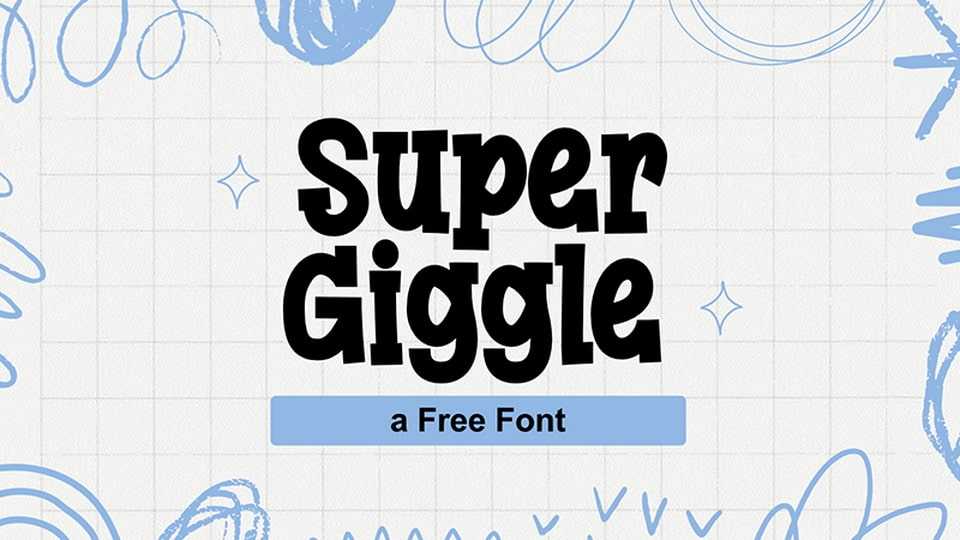
Download Super Giggle font, a playful and quirky cartoon typeface bursting with personality and fun. Super Giggle font features bouncy, irregular letterforms with a hand-drawn charm.